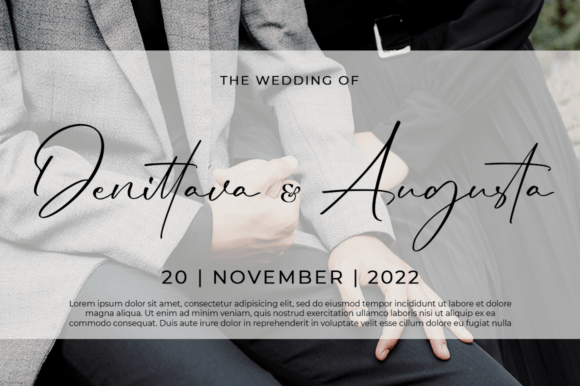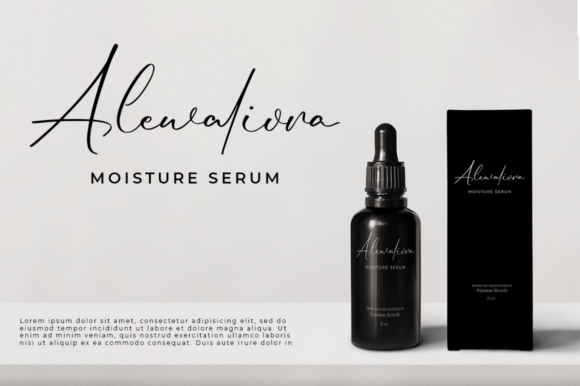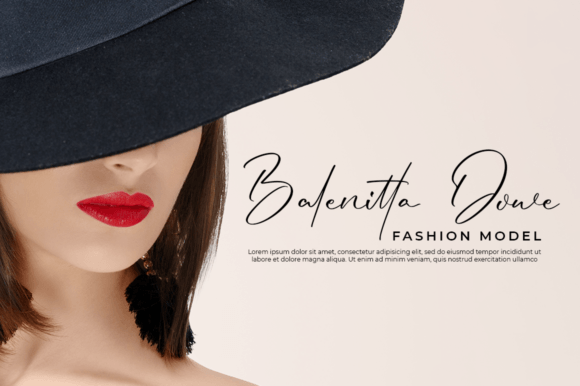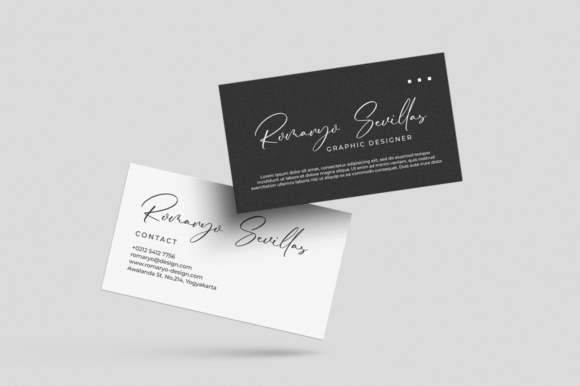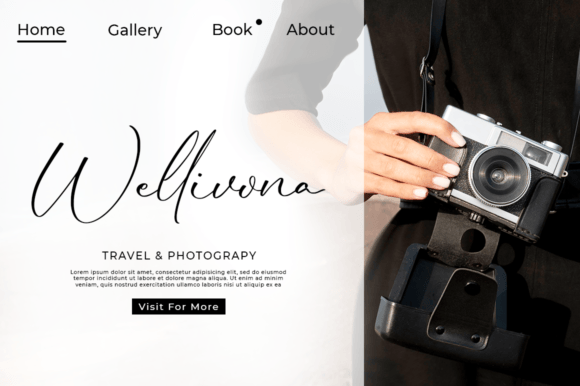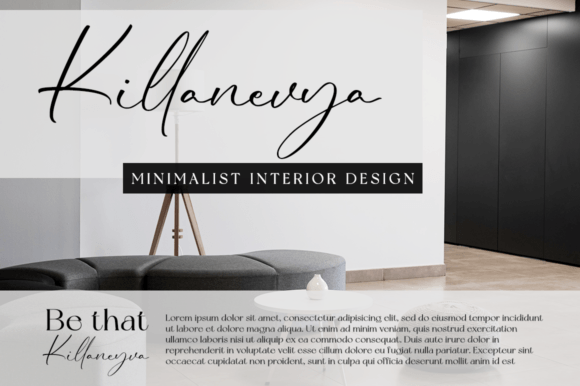
Introducing Constanley Font: Elevate Your Designs with Elegance and Sophistication
Are you a designer or crafter looking for a font that can add a touch of luxury to your projects? Look no further than Constanley Font, a beautiful and delicate handwritten font that is sure to make your designs stand out. With its unique feel and stunning impact, Constanley Font is the perfect choice for anyone looking to add a level of sophistication and elegance to their work.
What Makes Constanley Font So Special?
Constanley Font is a truly unique and special font that offers a range of features that set it apart from other fonts. Here are just a few of the things that make Constanley Font so special:
- Beautiful and Delicate Handwritten Style: Constanley Font has a beautiful, delicate handwritten style that is perfect for adding a touch of elegance and sophistication to your designs.
- Unique Feel and Stunning Impact: The font has a unique feel that is sure to make your designs stand out. Its stunning impact will grab the attention of your audience and leave a lasting impression.
- PUA Encoded for Easy Access: Constanley Font is PUA encoded, which means that you can access all of the amazing glyphs and ligatures with ease. This makes it easy to use the font in your designs and to create beautiful, professional-looking text.
How to Use Constanley Font in Your Designs
Constanley Font is a versatile font that can be used in a wide range of design projects. Here are just a few ideas for how you can use Constanley Font in your designs:
- Branding and Logo Design: Use Constanley Font to create beautiful, elegant logos and branding materials that will help your business stand out.
- Stationery and Invitations: Add a touch of luxury to your stationery and invitations with Constanley Font. Its elegant style is perfect for formal events and special occasions.
- Web Design: Use Constanley Font to add a touch of sophistication and elegance to your website. Its unique feel and stunning impact will help your website stand out and grab the attention of your audience.
Benefits of Using Constanley Font
There are many benefits to using Constanley Font in your designs. Here are just a few of the advantages of choosing Constanley Font:
- Elegance and Sophistication: Constanley Font adds a level of elegance and sophistication to your designs that is hard to achieve with other fonts.
- Unique and Memorable: The font’s unique feel and stunning impact make it a great choice for designers who want to create memorable and impactful designs.
- Easy to Use: Constanley Font is PUA encoded, which makes it easy to use and access all of the amazing glyphs and ligatures.
Tips for Getting the Most Out of Constanley Font
Here are a few tips for getting the most out of Constanley Font:
- Use it in Combination with Other Fonts: Constanley Font pairs well with other fonts, so don’t be afraid to use it in combination with other fonts to create a unique and interesting design.
- Take Advantage of the Glyphs and Ligatures: Make sure to take advantage of the amazing glyphs and ligatures that are included with Constanley Font. These can add an extra level of elegance and sophistication to your designs.
In conclusion, Constanley Font is a beautiful and delicate handwritten font that is perfect for designers and crafters who want to add a touch of luxury and sophistication to their designs. With its unique feel and stunning impact, Constanley Font is sure to make your designs stand out. Its PUA encoding makes it easy to use and access all of the amazing glyphs and ligatures, and its versatility makes it suitable for a wide range of design projects. Whether you’re looking to create elegant branding materials, stationery, or web designs, Constanley Font is a great choice.